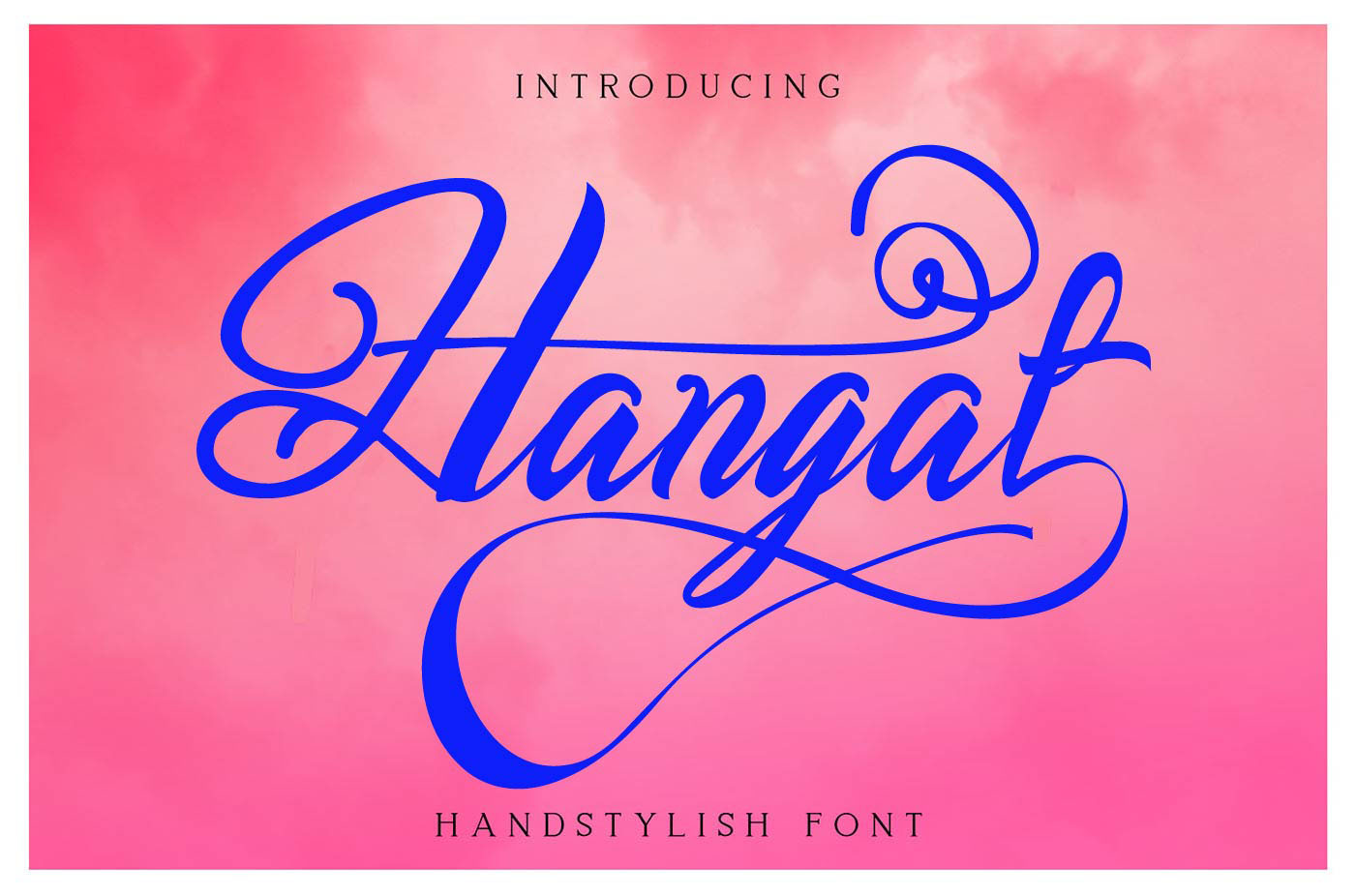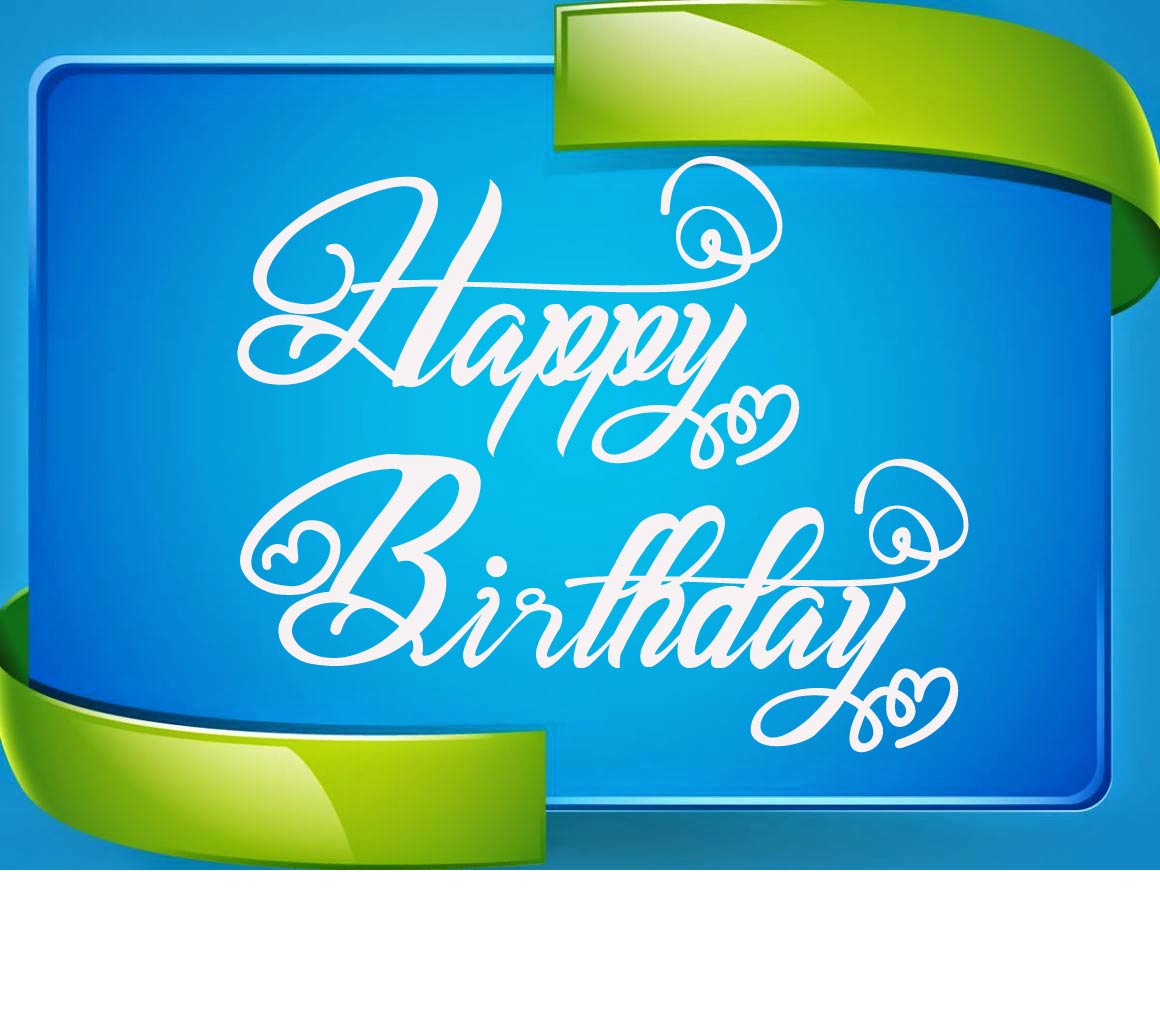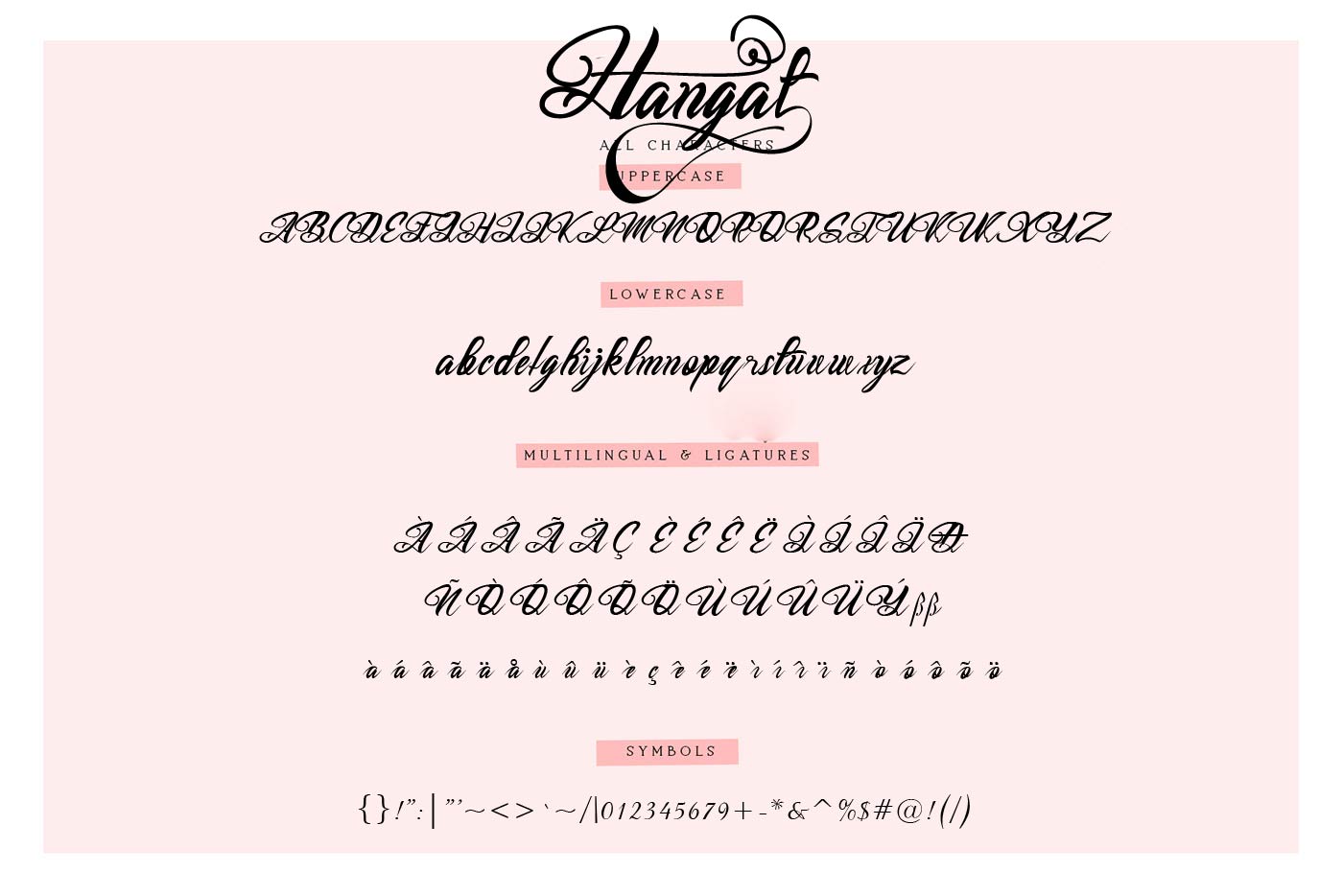
Hangat Font
About Hangat Font
Hangat is a gorgeous script font, bold and beautiful. This feminine font looks great as a title font, and will give all your designs a charming appeal.